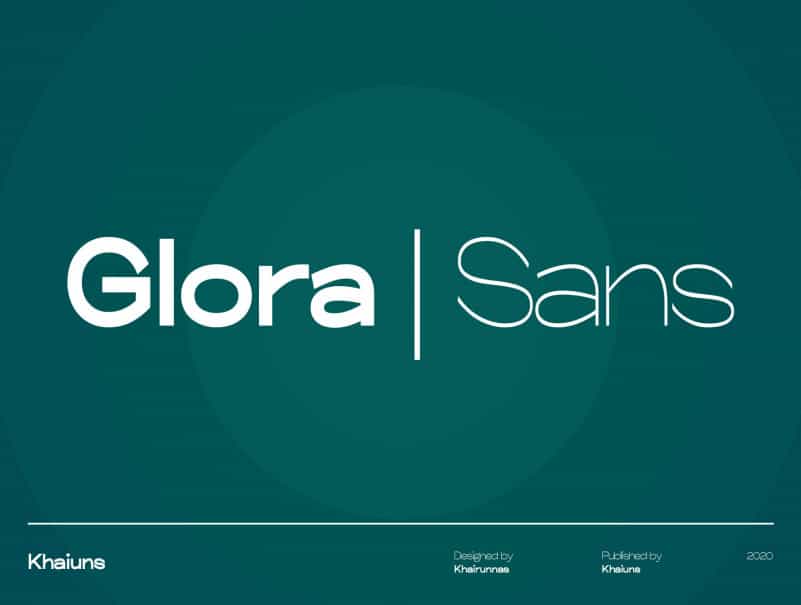
Glora Sans Serif Font
Glora Sans Serif Font is a Minimalist Modern Elegant Typeface. It’s a very versatile font that works great in large and small sizes. Made from font designer named khaiuns. This font is a modern sans serif with a soft touch made at Warkop for fun. Glora has strong upper and lowercase letters that are subtle and effective in a variety of designs for your project. This font is very good in my opinion, you must think I praise my own work, you are not mistaken I also think the same as you.
It is perfect for graphic design and any display use. It can easily work for web, signage, corporate as well as for editorial design.